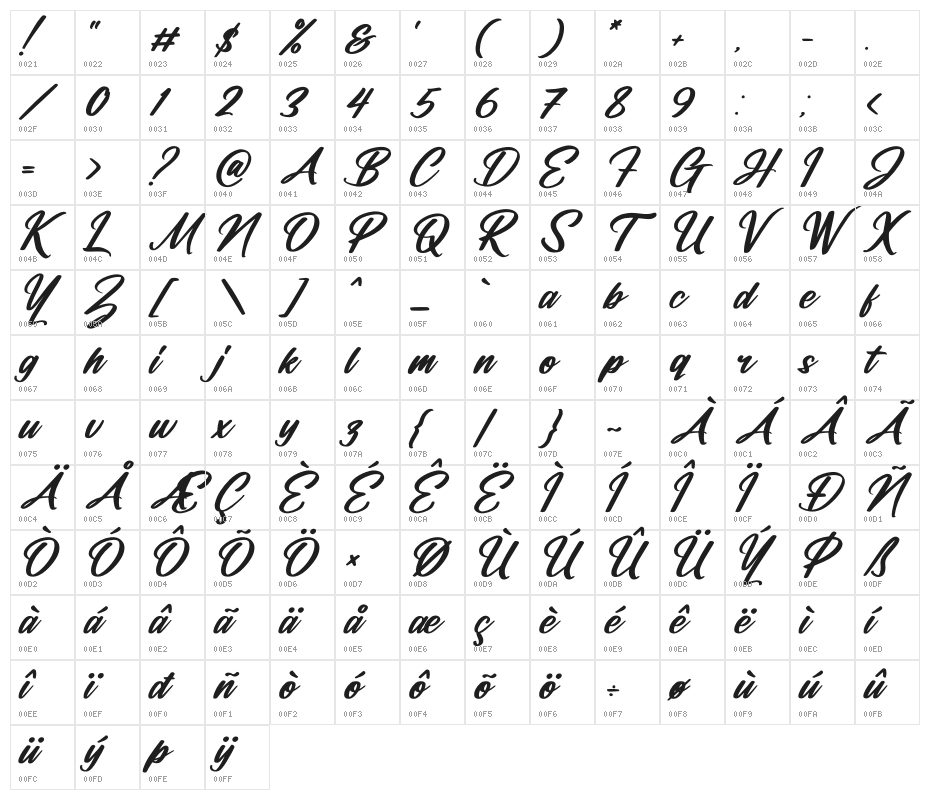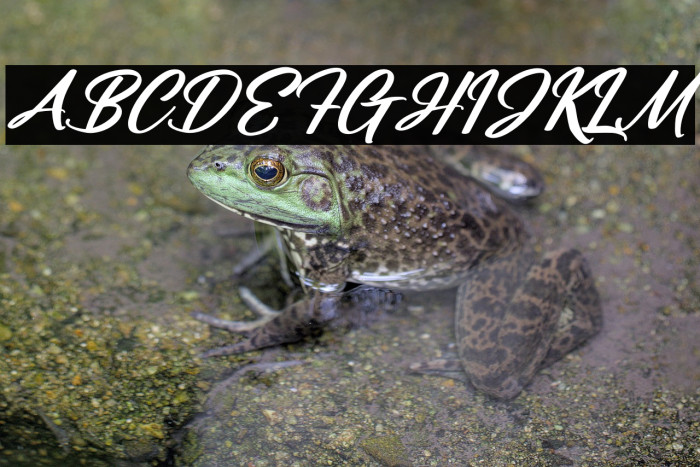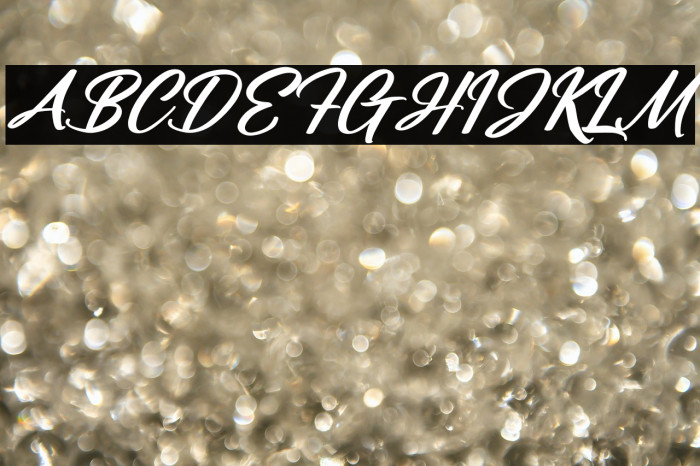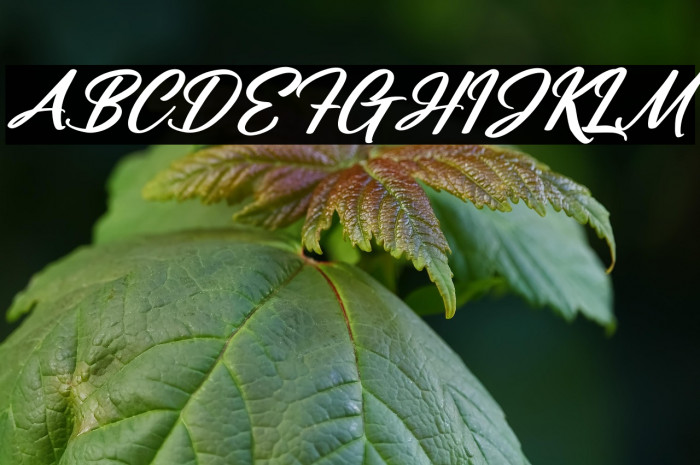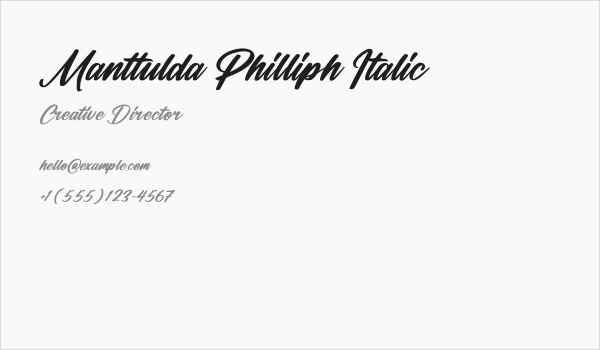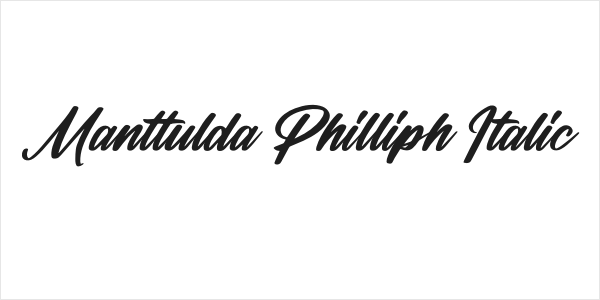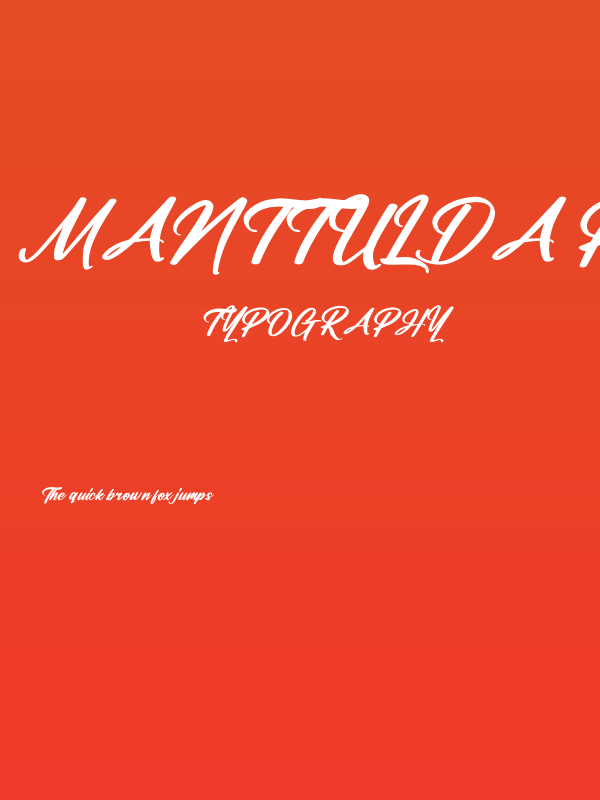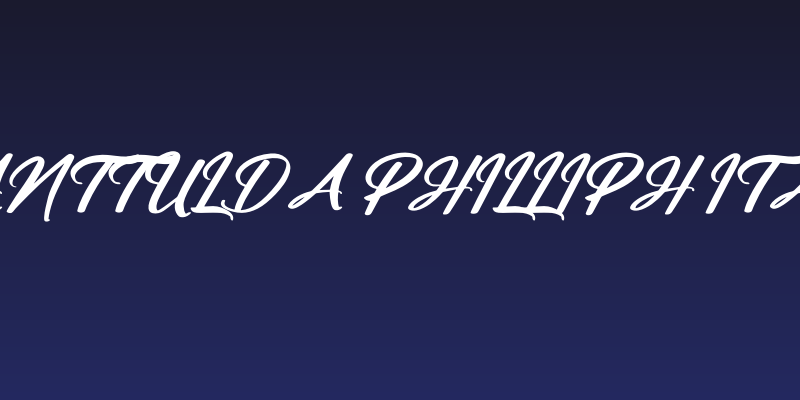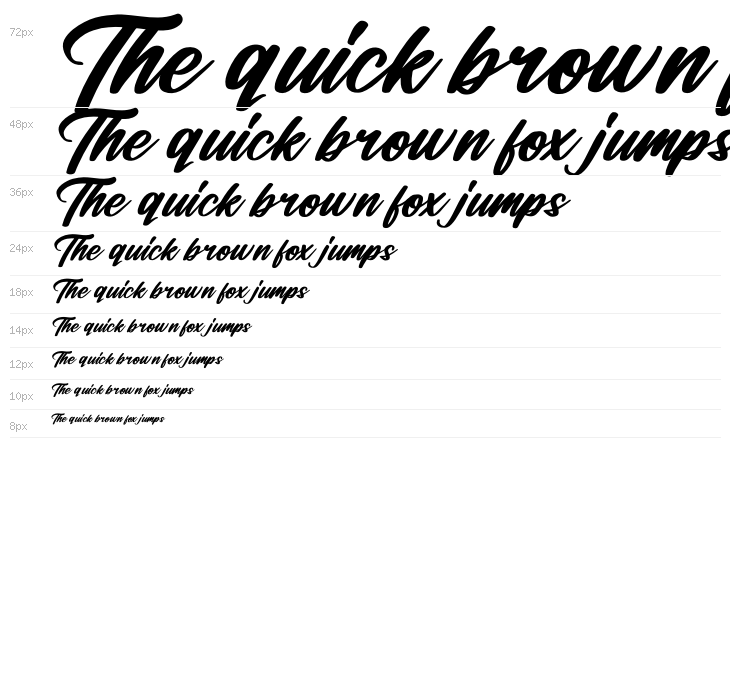
Manttulda Philliph Italic Font
Manttulda Philliph Italic Description
This font features a dynamic and flowing script style, characterized by its elegant and connected letterforms. The uppercase letters exhibit a graceful slant, while the lowercase letters maintain a consistent rhythm, enhancing readability. The numerals are bold and slightly italicized, complementing the overall cursive aesthetic. Special characters are designed with flair, adding a touch of sophistication. The font's smooth curves and balanced proportions make it suitable for a variety of design applications.
| Overall Style | Elegant, Decorative |
| Proposed Projects | Ideal for wedding invitations, branding, greeting cards, and elegant packaging designs. |